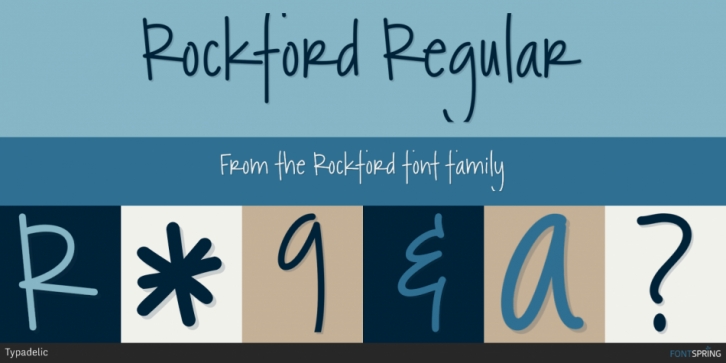
Rockford is a hand drawn font published by Typadelic.
Completely computer generated, Rockford exudes an energetic, yet quirky handwritten quality. Rockford doesn’t follow many typographical rules which make it perfect for casual notes, scrapbooking and greeting cards.